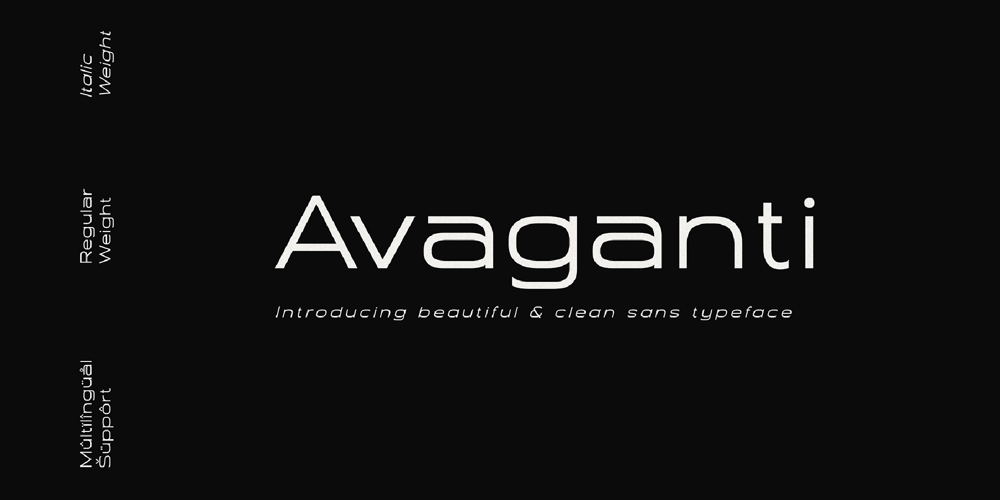
Avaganti Font Family was designed by Igor Ovsyannykov and published by Hipfonts. Avaganti contains 2 styles and family package options. Are you ready to elevate your design projects to a whole new level of sophistication? Look no further than Avaganti, the epitome of modern typography excellence! This sleek and versatile Clean Sans Typeface is your passport to a world of creative possibilities, where every word you craft becomes a visual masterpiece.Key Features:Unmatched Elegance: Avaganti’s timeless design exudes elegance in every curve and line, making it the perfect choice for those who demand nothing but the best in their visual creations.Crystal-Clear Legibility: Say goodbye to the days of struggling to decipher obscure fonts. Avaganti’s clean and straightforward letterforms ensure effortless readability, whether on screens or in print.Versatile Applications: From logos and branding to website headings and printed materials, Avaganti seamlessly adapts to all design projects, adding a touch of class and professionalism.Modern Aesthetics: With a contemporary yet timeless aesthetic, Avaganti effortlessly keeps your designs looking fresh and relevant, no matter the trends.Unleash Your Creativity: Avaganti empowers your creativity, allowing you to experiment with various styles and layouts while maintaining a clean, polished appearance.Smooth Vector Quality: Every character in Avaganti is meticulously crafted to perfection, ensuring smooth vector quality that impresses even the most discerning designers.Avaganti isn’t just a typeface; it’s a statement of elegance, precision, and creativity. It’s your secret weapon to crafting visually stunning and unforgettable designs. Elevate your projects, captivate your audience, and leave a lasting impression with Avaganti – the Clean Sans Typeface that sets new standards in design excellence.Don’t miss out on the opportunity to transform your creative work into a masterpiece. Get Avaganti today and let your typography speak volumes!